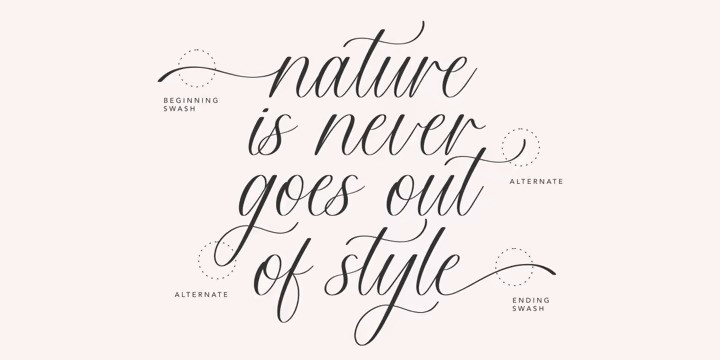
Hildegard Font
Hildegard Script Font is a new brush script from debut studio. It’s elegant and beautiful, ready to be use for any project you have in mind.